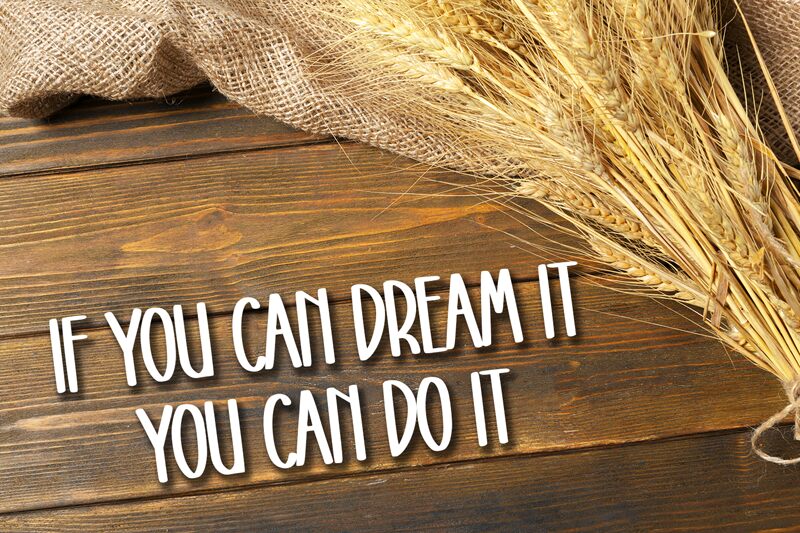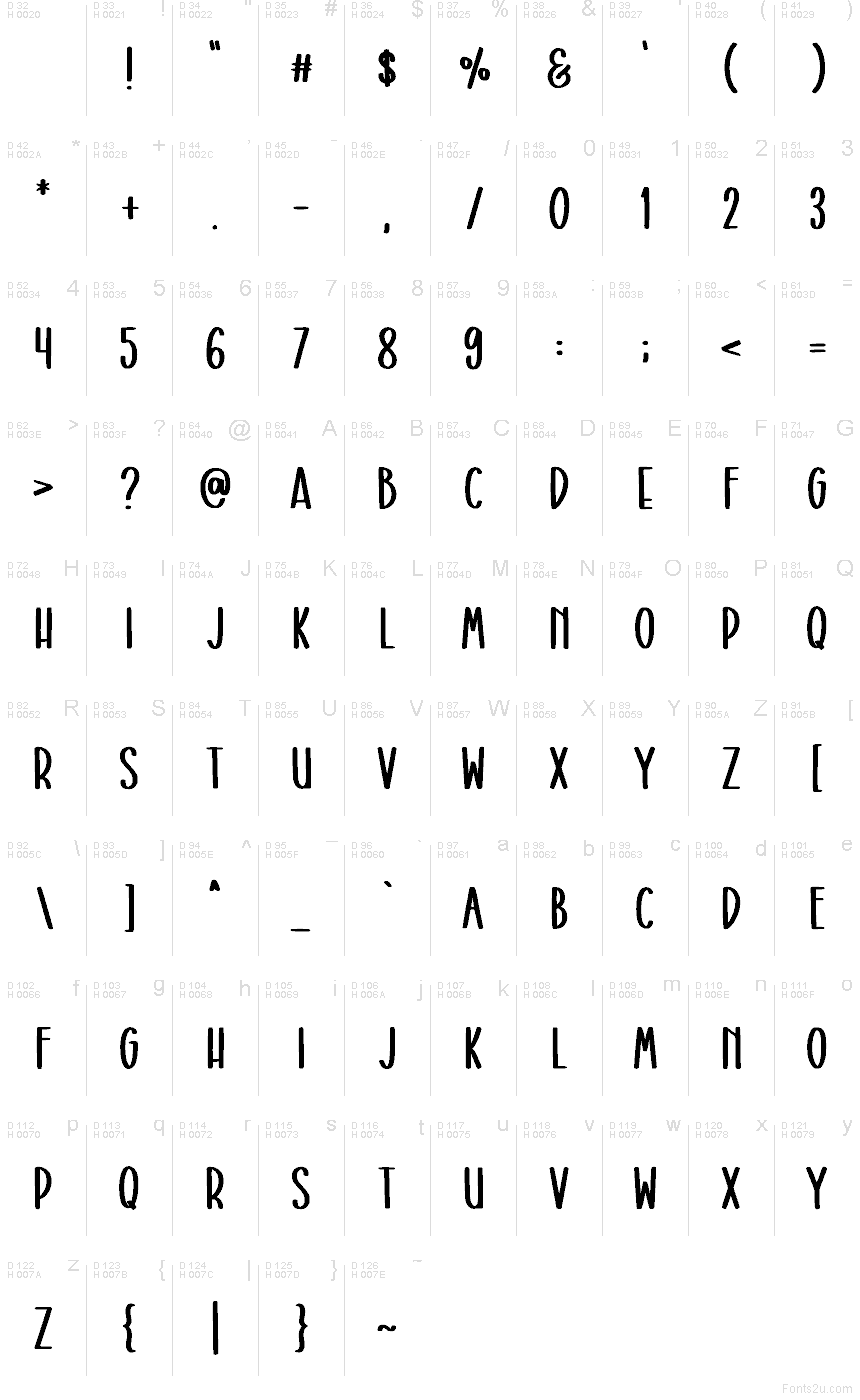
Sindangkasih
Sindangkasih font by Abo Daniel Studio is a free handwritten typeface with an unusually tall, narrow rhythm that feels both playful and grounded. The strokes are inky and full, but the letters stay neatly condensed, creating a hand-drawn look that doesn’t sprawl or feel messy. Rounded corners and gentle curves soften the vertical structure, giving text a warm, crafted personality that still reads clearly at a glance.
Using Sindangkasih, you get that “sign painted by hand” vibe that shines on cafe branding, boutique packaging, poster titles, social media graphics, and DIY-style invitations. This free font also works beautifully in logos where you need a friendly, stacked wordmark without wasting horizontal space. Pair it with a simple geometric sans for body copy, and let Sindangkasih handle the bold, character-rich headlines at larger sizes.